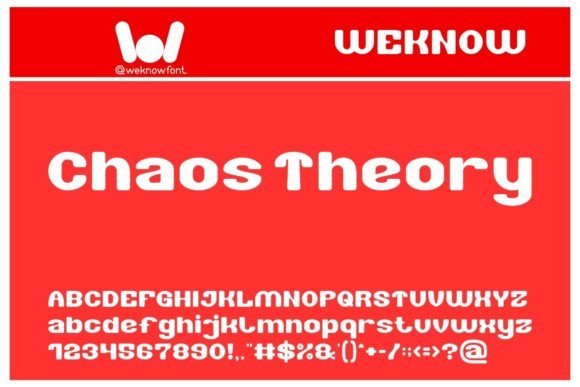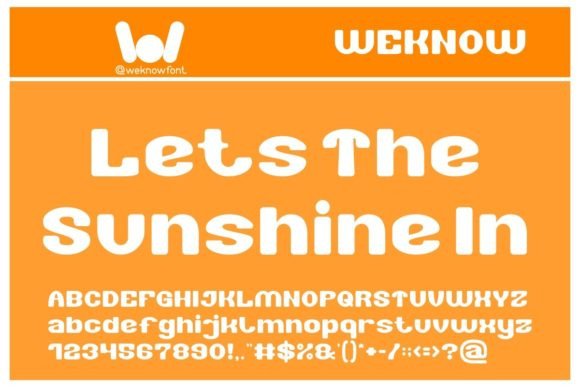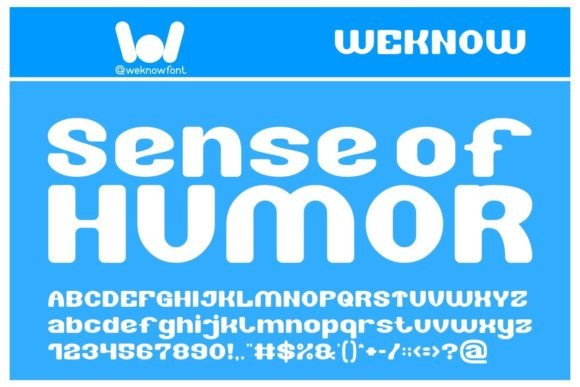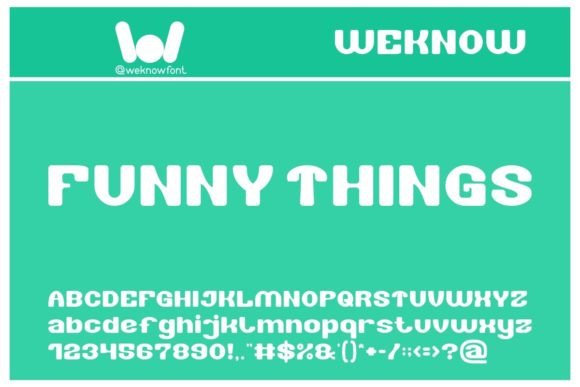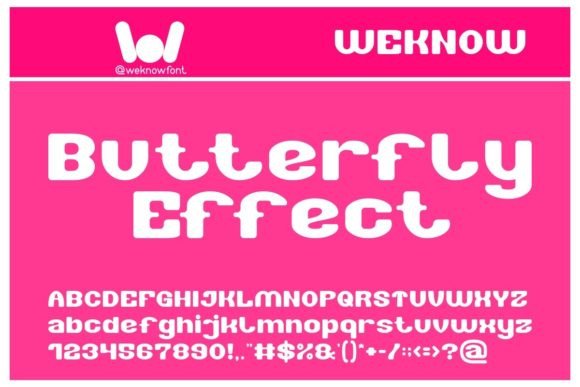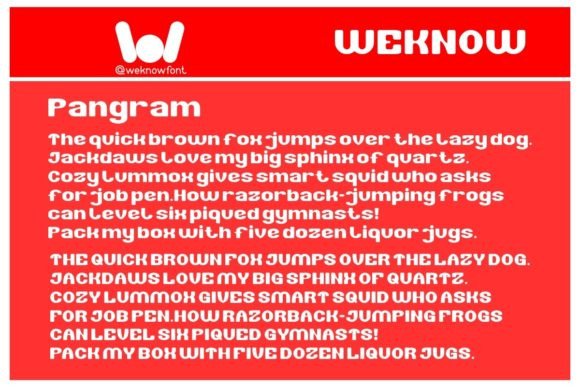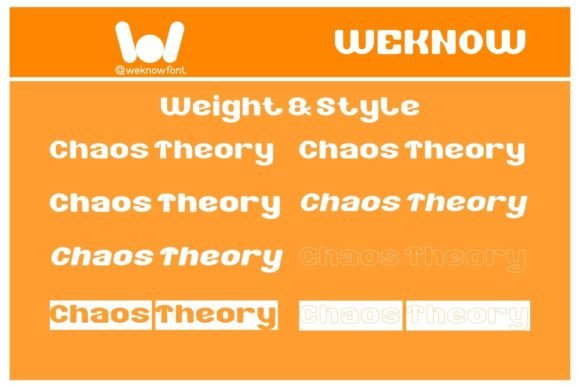
The Birth of a Creative Masterpiece
Have you ever stared at a blank canvas, searching for the perfect font to bring your design to life? It’s a moment every designer has experienced, the thrill of creation, the agony of indecision. But what if you had the perfect tool at your fingertips? Introducing the Chaos Theory Font, a stunning display font designed to elevate your creative projects.
This font is more than just a collection of letters – it’s a statement piece, a bold declaration of your brand’s personality. Whether you’re working on a logo, logotype, or headline, the Chaos Theory Font is the perfect choice to make a lasting impression. Its versatility makes it valuable for designers, allowing you to experiment with different styles and applications.
Chaos Theory Font Key Features
- Font Family: Chaos Theory is a sans-serif font family designed by Nick Sherman.
- Unique Characteristics: Features a unique blend of geometric and organic elements, with a focus on legibility and readability at small font sizes.
Chaos Theory Font Review
As a designer, I was excited to dive into the world of Chaos Theory Font and see what it had to offer. Here are my honest thoughts on this unique font.
- Unique character set: The font has a quirky, hand-drawn feel that’s perfect for designers looking for something off the beaten path.
- Expressive personality: The font’s irregularities give it a lot of character and make it perfect for titles and headings.
- Good for creative projects: The font’s playful vibe makes it a great choice for creative projects like illustrations, graphics, and branding.
- Readability issues: The font’s irregularities can make it difficult to read, especially for long blocks of text.
- Limited legibility: The font’s unique character set can make it hard to distinguish between similar characters.
- Not suitable for formal projects: The font’s playful vibe may not be suitable for formal projects or professional branding.
Overall, I think Chaos Theory Font is a great choice for designers looking for a unique and creative font. However, it’s not for everyone, and it’s essential to consider its limitations before using it in a project.
To get the most out of the Chaos Theory Font, use it in designs that require a unique and eye-catching look. Some common use cases include:
- Headlines and titles.
- Branding and logos.
- Infographics and data visualizations.
- Editorial and magazine designs.
Experiment with different font sizes, colors, and combinations to create a visually striking design.